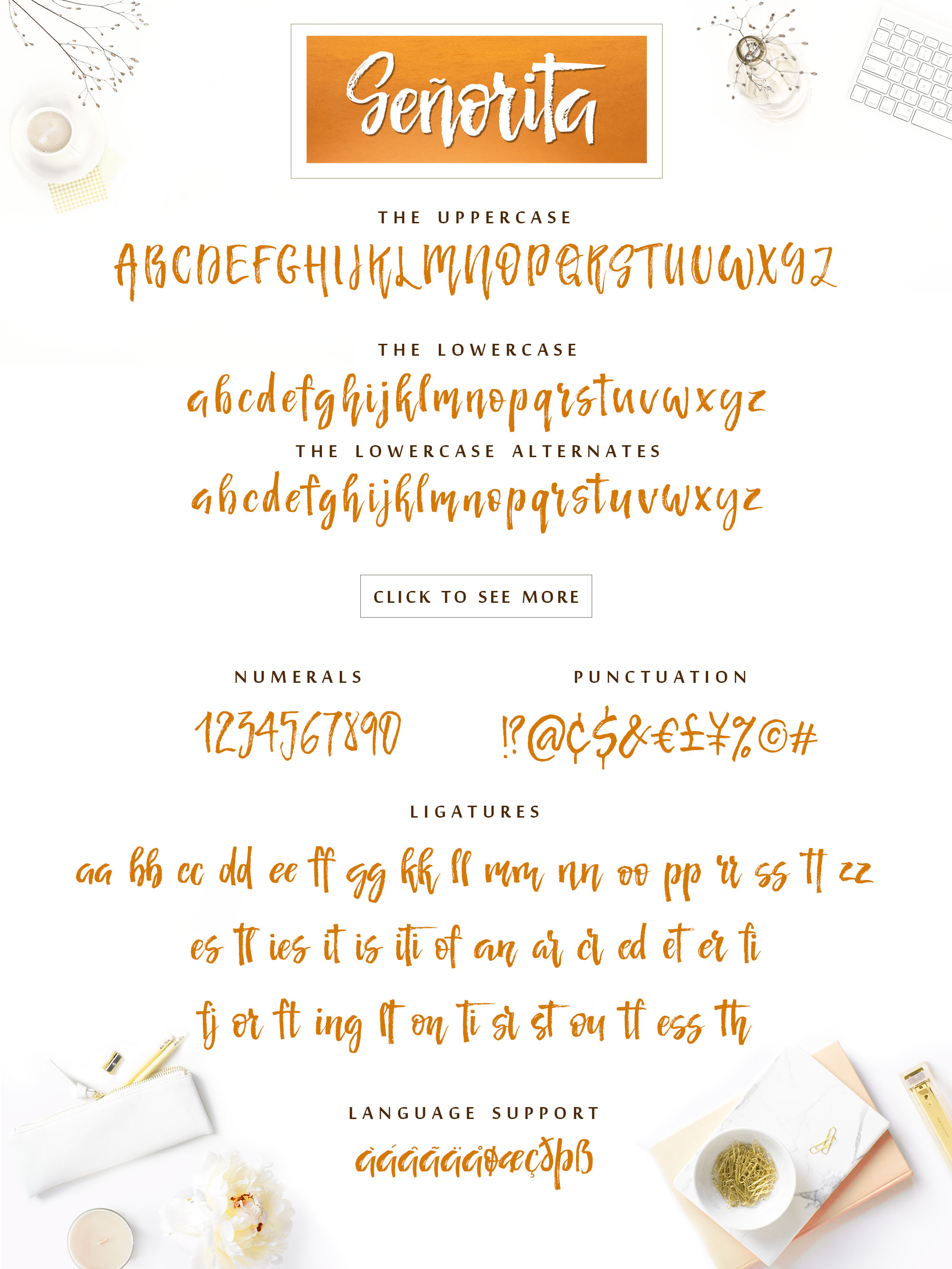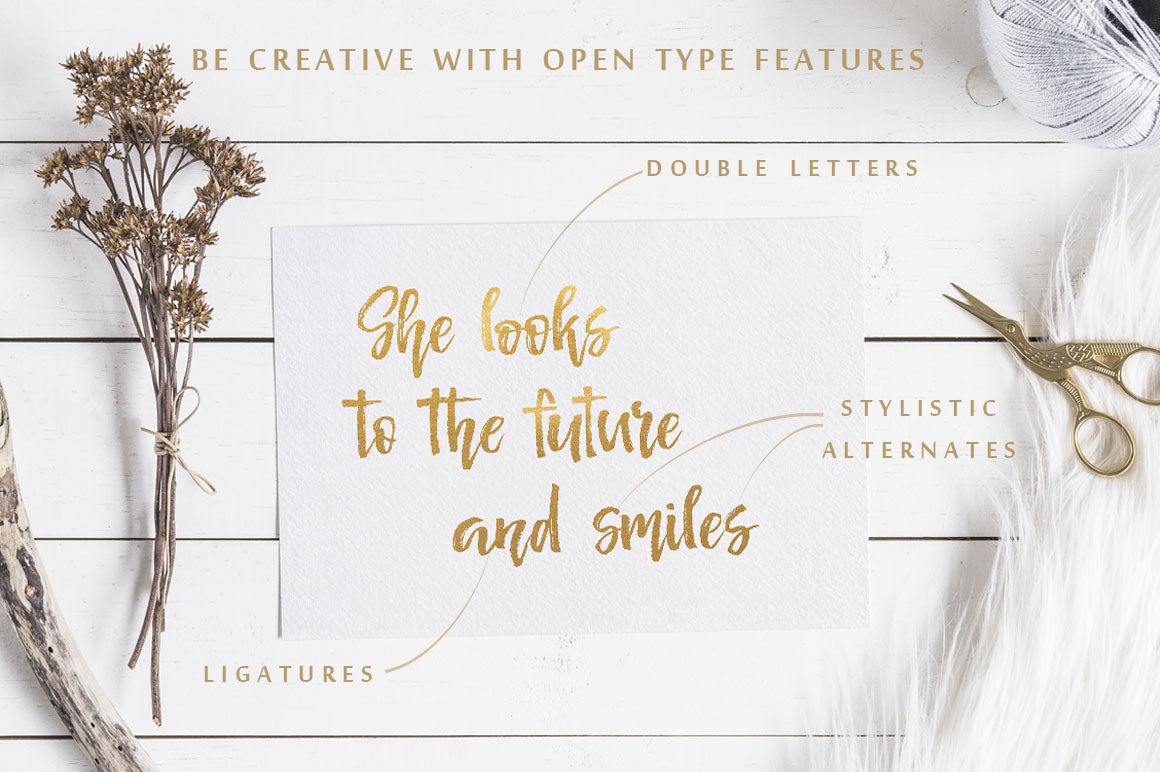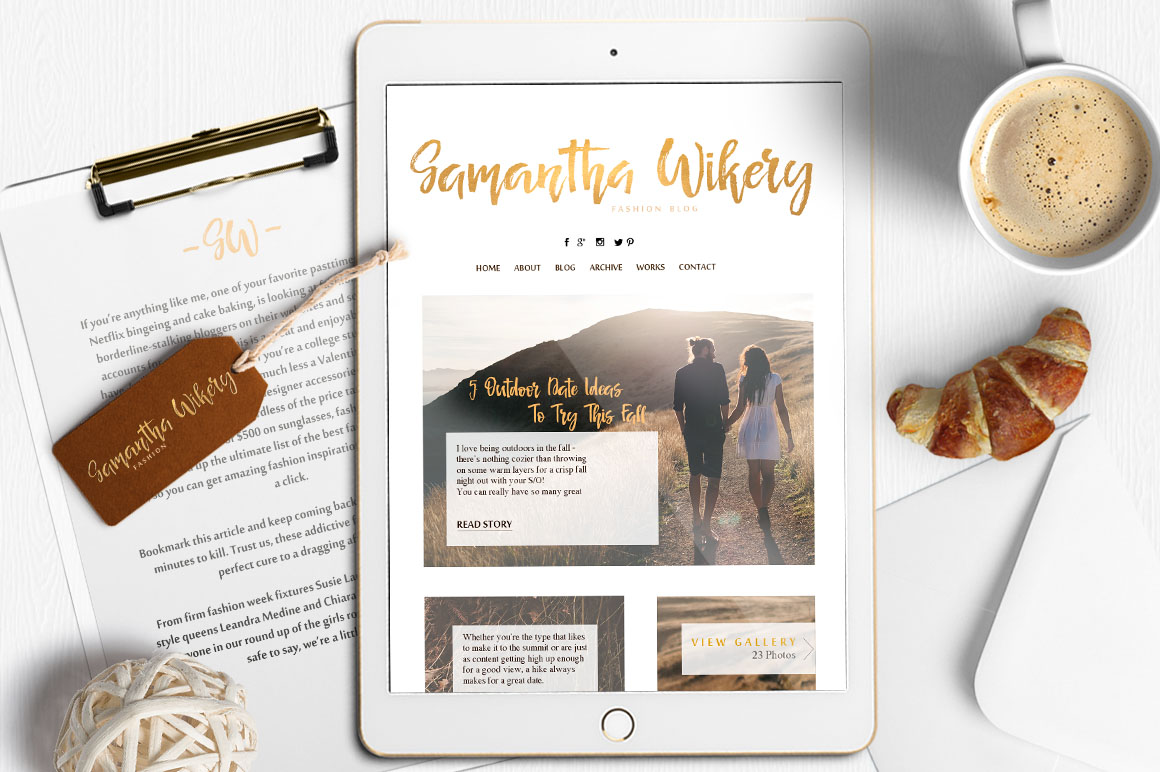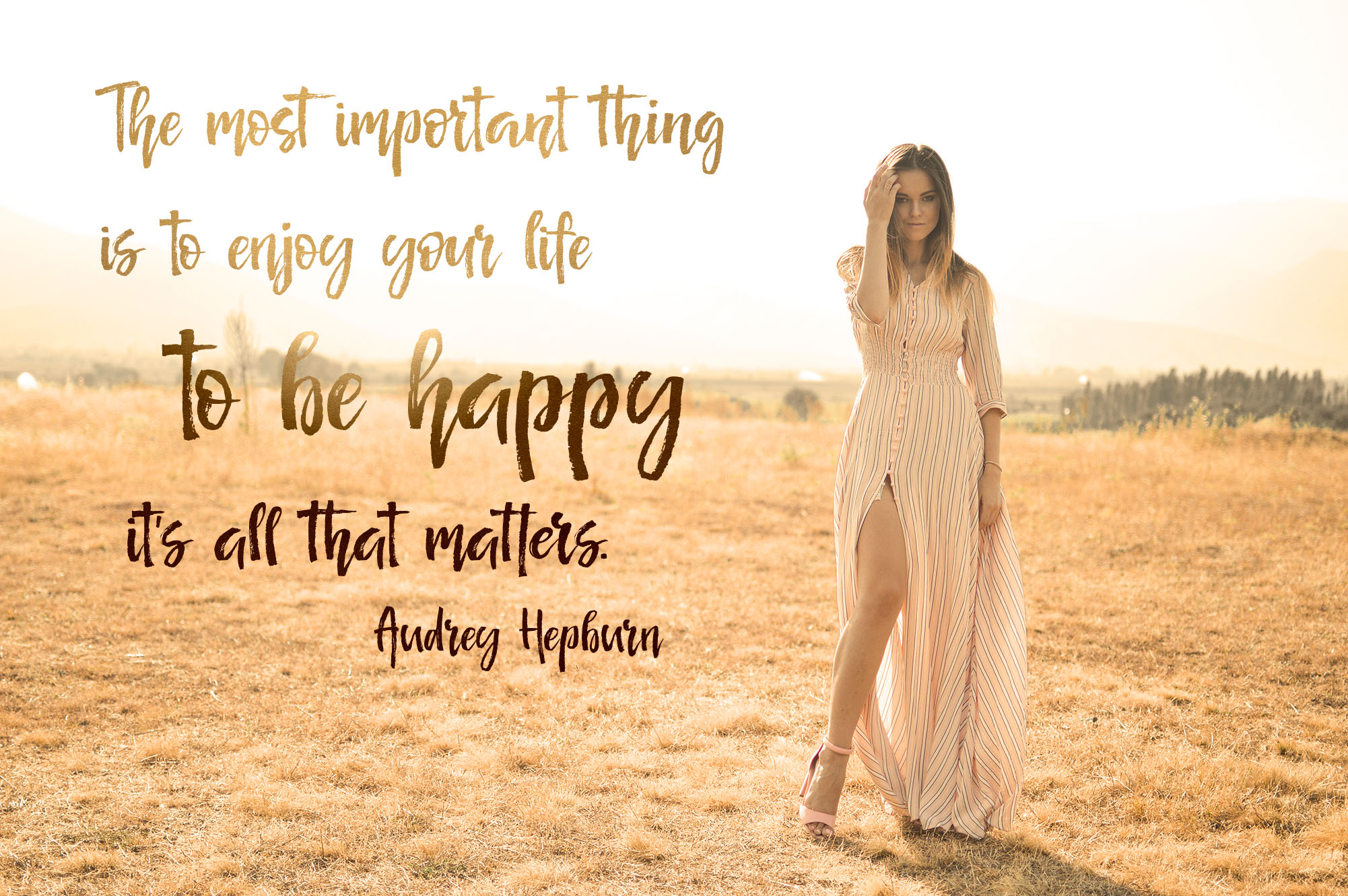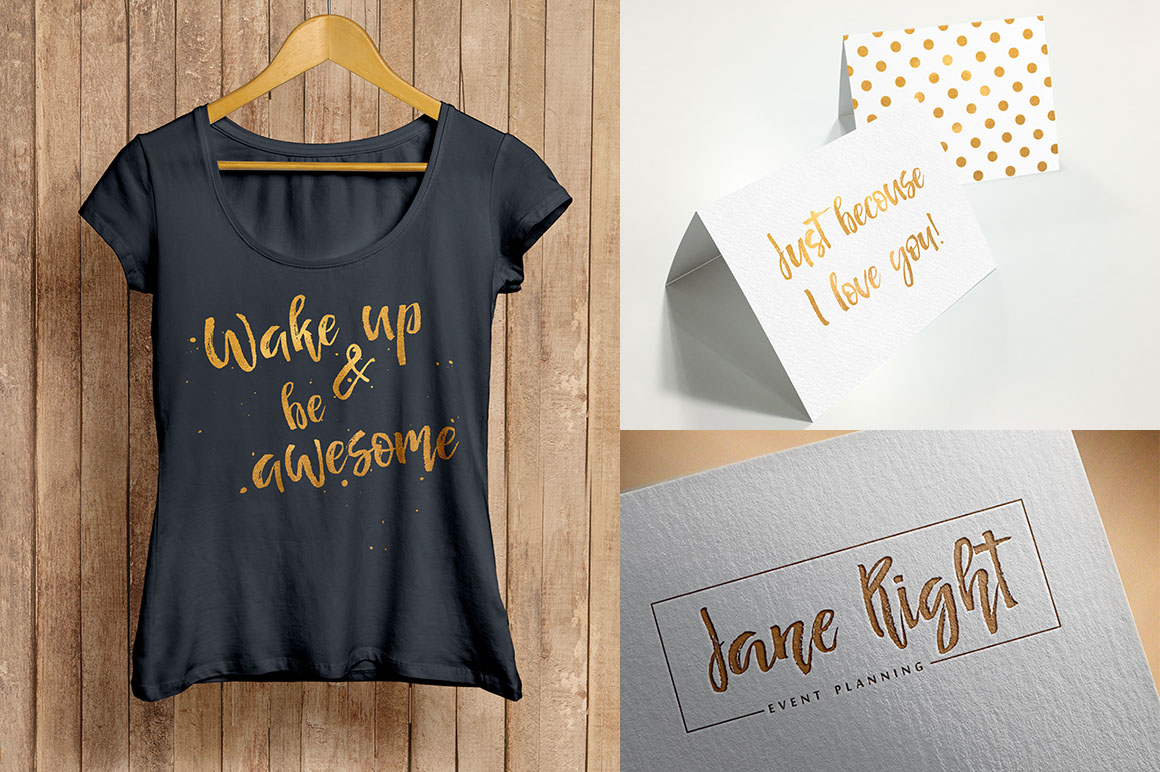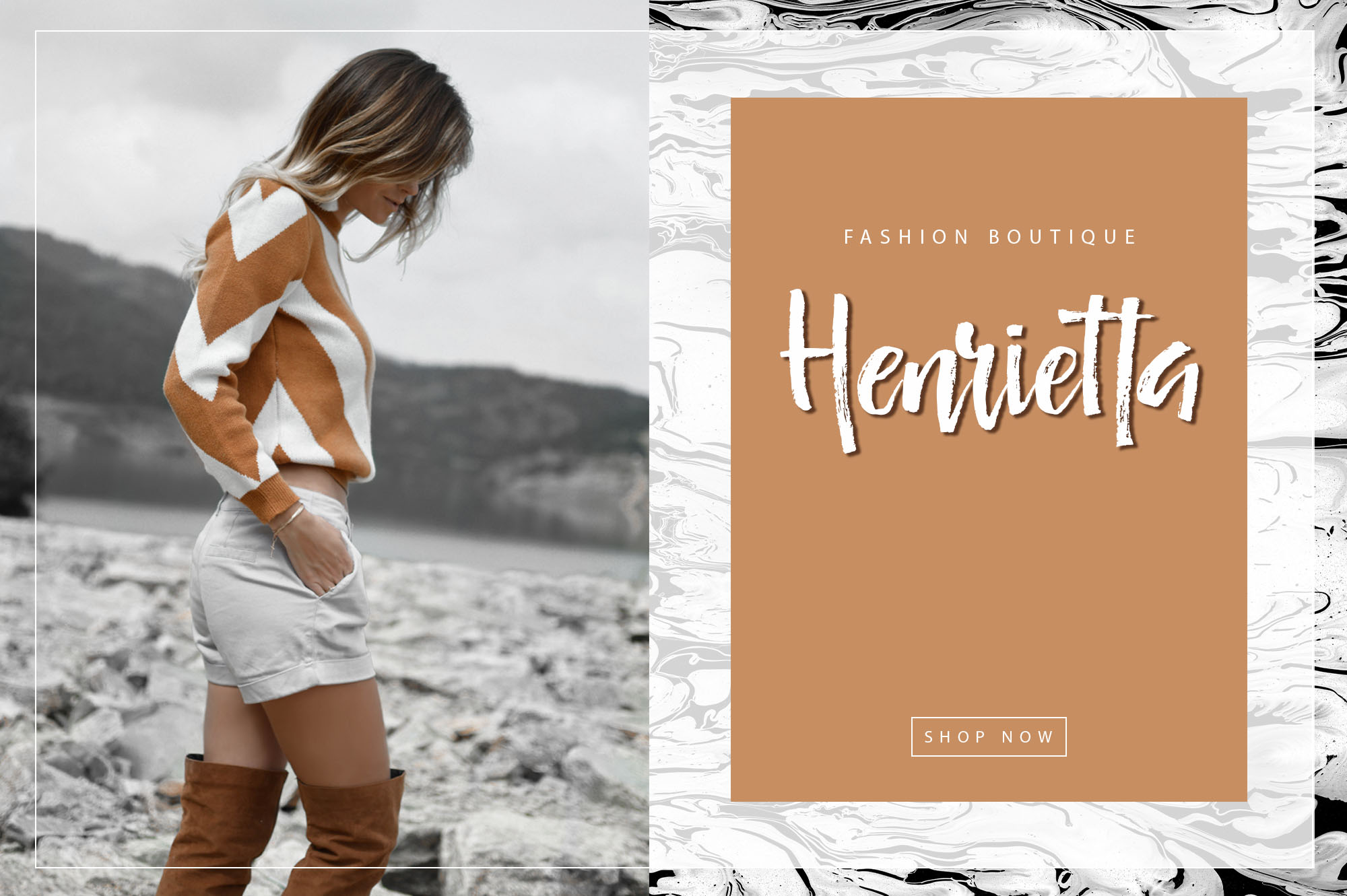
Introduction to Señorita Font
As a designer, have you ever been working on a creative project, pouring your heart and soul into it, when suddenly, you need that one special element to bring it all together? The kind of element that adds a touch of elegance and sophistication, yet still maintains that unique, personal feel? For me, that element is often a beautifully crafted font. And that’s exactly what you’ll find with the Señorita Font.
This stunning dry brush font is more than just a design resource – it’s a game-changer. With its extensive language support and high-quality design, it’s the perfect addition to any project. Whether you’re working on a free download or a commercial design, Señorita Font is sure to elevate your work to the next level. And with its transparent background, you can easily layer it over other elements to create a truly one-of-a-kind look.
Key Features of Señorita Font
- High-quality, elegant script font perfect for creative projects, available for free download.
- Comes in 6 different styles, including Regular, Italic, Bold, Bold Italic, and two ornate versions, providing versatility for various design needs.
- Features a transparent background, making it ideal for use on any background or design element.
- Designed as a design resource for professionals and hobbyists alike, the Señorita Font is suitable for a wide range of applications, including logos, invitations, and digital art.
- Designed at 400 DPI (dots per inch) for high-resolution printing and digital use.
- Unique characteristics include a beautiful, flowing script and ornate details, making it stand out from other fonts.
Honest Review: Señorita Font
I recently stumbled upon the Señorita Font and I must say it’s a great addition to any creative project. The font’s free download is definitely a plus for designers on a budget.
Here are some of the things that work well for me:
- ✨ High quality design that’s perfect for creative projects
- ✨ Unique and elegant style that sets it apart from other fonts
- ✨ Transparent background option for seamless integration with other design elements
However, there are a few limitations I’d like to point out:
- ⚠️ Limited font sizes and styles available (although the designer does provide additional files for manual scaling)
- ⚠️ Some characters may not render correctly in certain applications
Overall, I think the Señorita Font is a solid design resource that’s definitely worth checking out. With its high quality design and transparent background option, it’s a great addition to any creative project. Just be aware of the limitations mentioned above.
Using Señorita Font in Design Projects
Señorita Font is ideal for creative projects that require a touch of elegance and sophistication. It’s perfect for use in logos, branding materials, and other design elements.
Tips for Getting the Most Out of Señorita Font
To get the most out of Señorita Font, use it with a transparent background to create a seamless design experience. You can also experiment with different font sizes and styles to add depth and visual interest to your designs.
Common Use Cases for Señorita Font
Señorita Font is commonly used in:
Alternatives to Señorita Font
Great Vibes Font is a beautiful, elegant script font that is perfect for creative projects requiring a touch of sophistication. It is available for free download and can be used on any design project that needs a high-quality font. Great Vibes Font is ideal for invitations, wedding stationery, and other formal events.
Compared to Señorita Font, Great Vibes Font has a more refined and polished look, making it suitable for formal events and high-end designs. However, Great Vibes Font lacks the playfulness and whimsy of Señorita Font.
Alex Brush Font is a stunning, handwritten font that is perfect for designers looking for a high-quality, creative font. It is available for free download and can be used on a variety of design projects, from branding to packaging. Alex Brush Font is ideal for projects that require a personal touch and a touch of elegance.
Compared to Señorita Font, Alex Brush Font has a more sophisticated and refined look, making it suitable for high-end designs and formal events. However, Alex Brush Font lacks the fun and playfulness of Señorita Font.